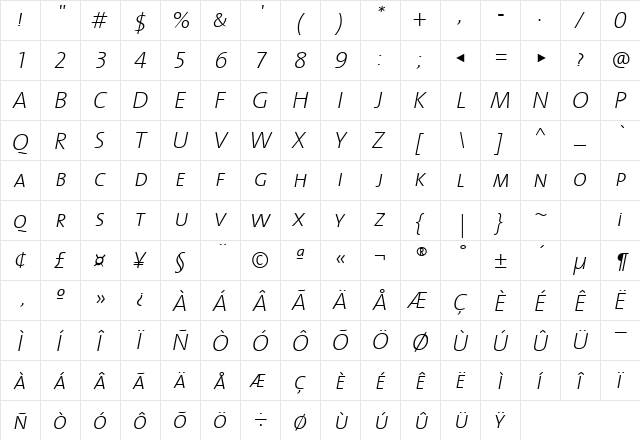
TheSanExtLigCapIta Regular
Design Context for TheSanExtLigCapIta Typeface
TheSanExtLigCapIta takes a measured approach to typography — its balanced proportions and neutral character make it a reliable workhorse for both digital and print work.